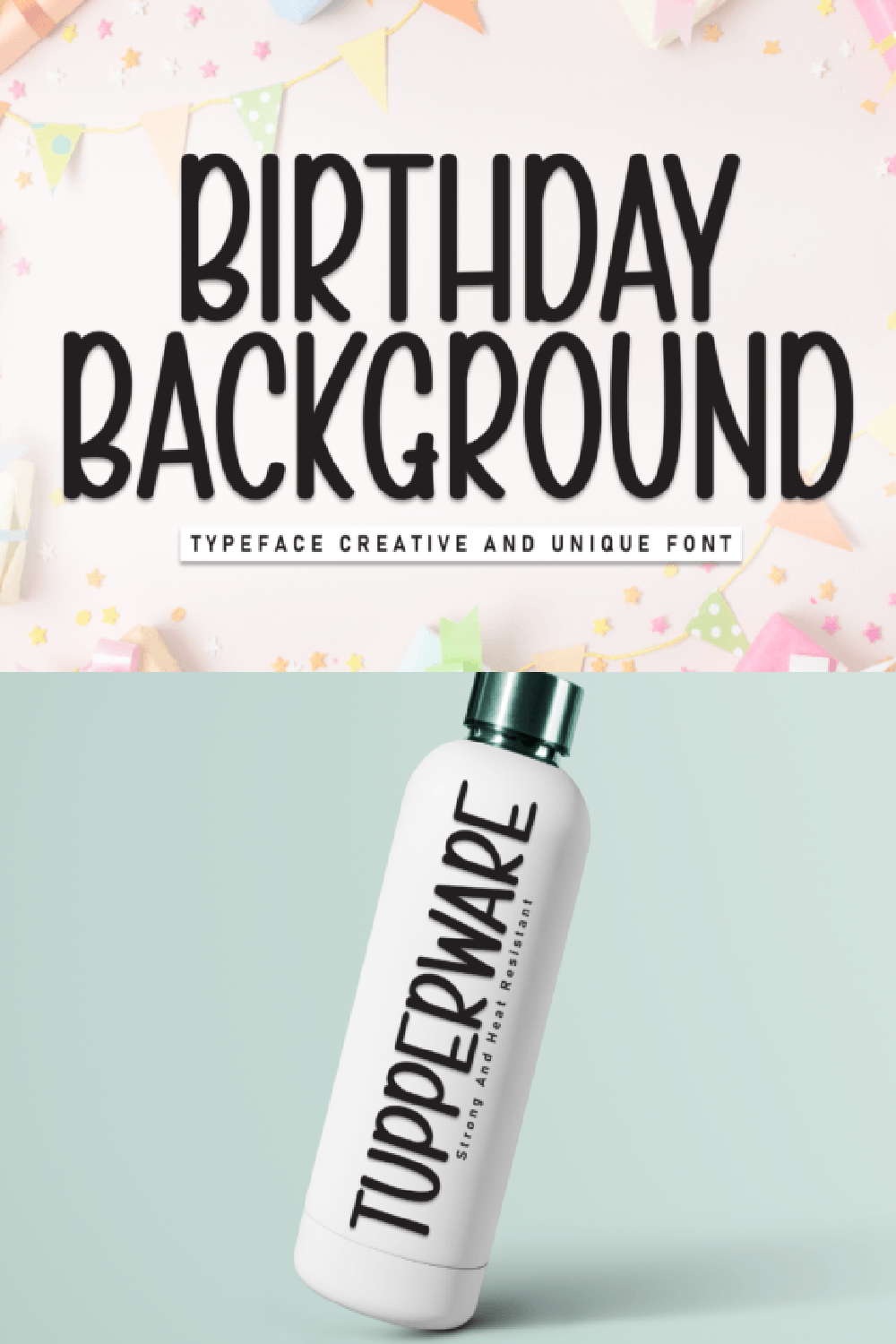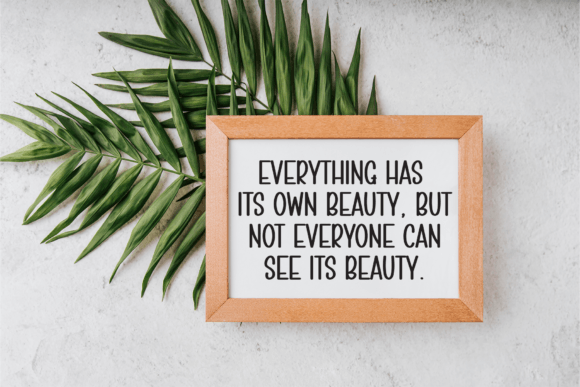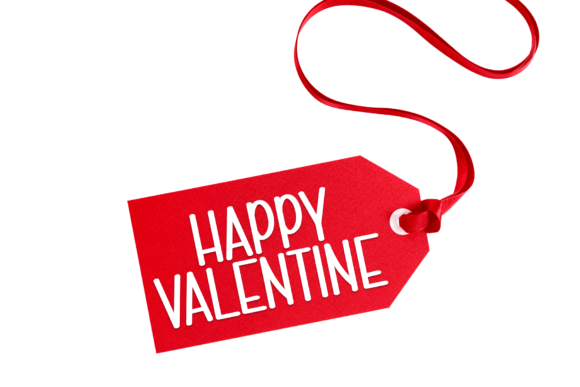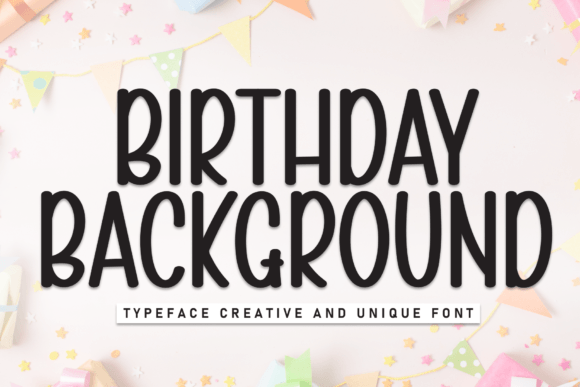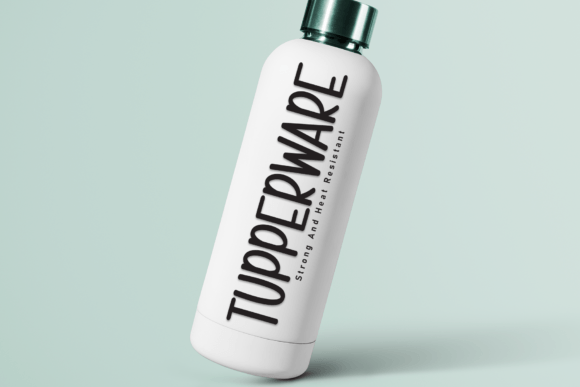
Birthday Background Font
About the Birthday Background Font
Unleash your creativity with Birthday Background Font, a versatile font perfect for a wide range of applications. Birthday Background is a neat and casual sans-serif font that combines simplicity with a touch of warmth. With clean lines and balanced proportions, it exudes a friendly and approachable vibe. Perfect for various design projects, Birthday Background brings a modern and versatile style to your typography repertoire.